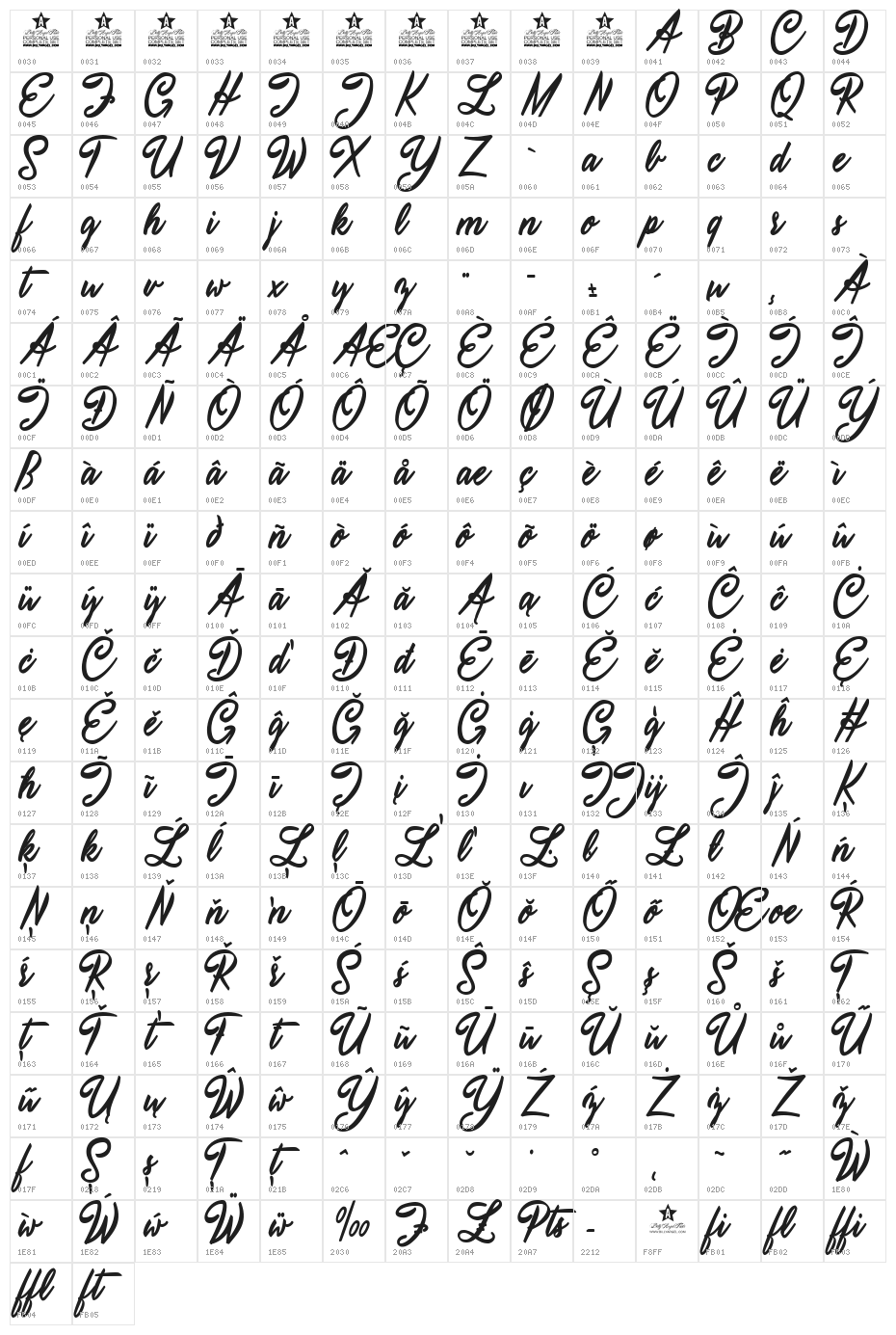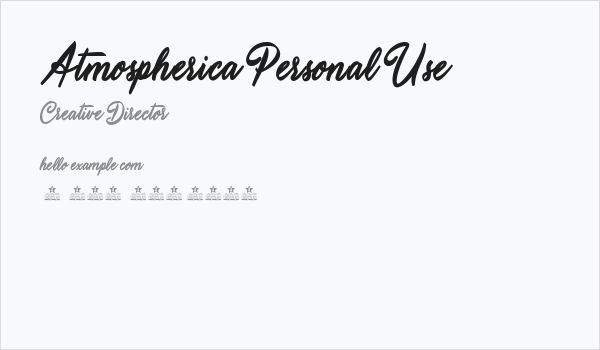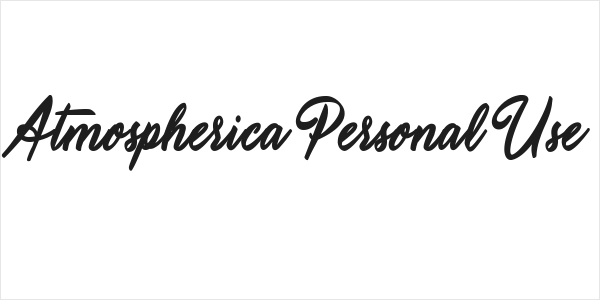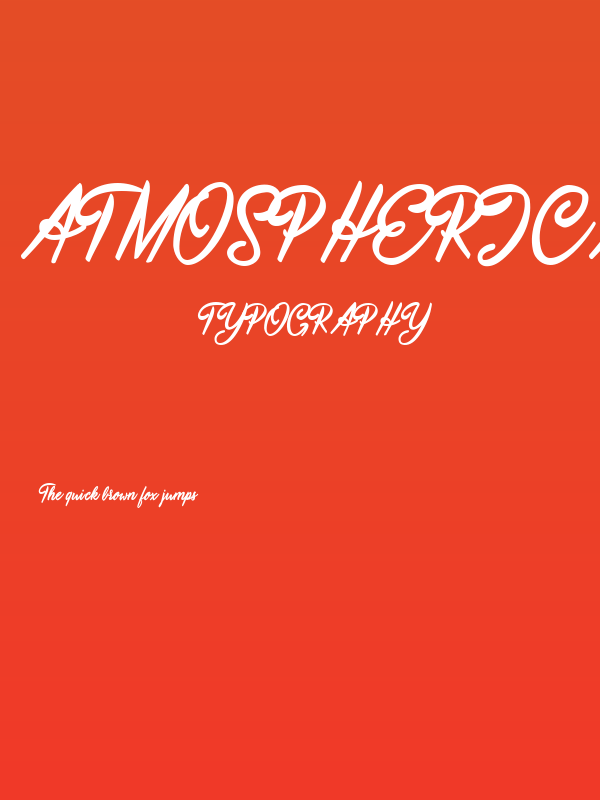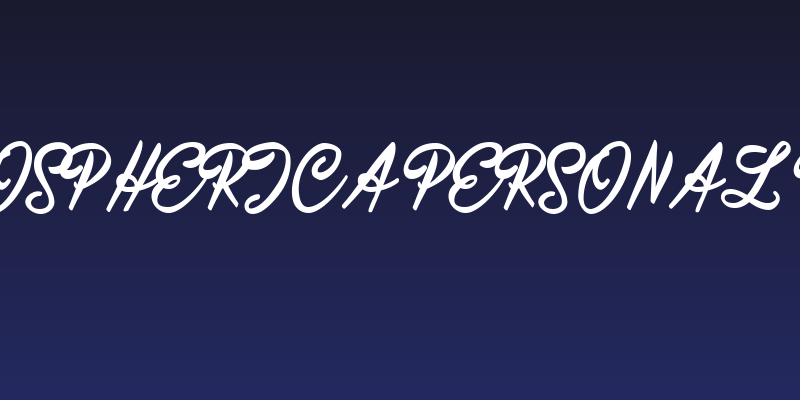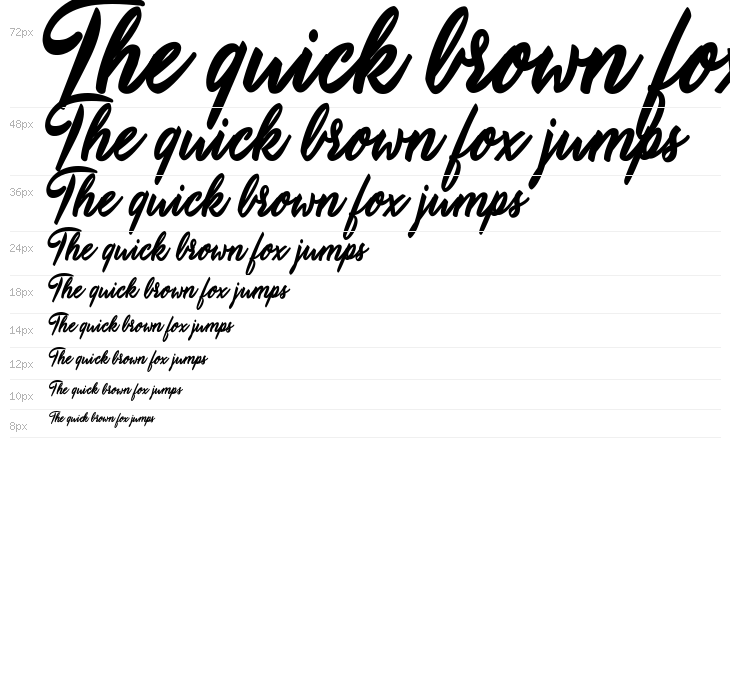
Atmospherica Personal Use Font
Atmospherica Personal Use Description
This font features a dynamic and flowing script style, characterized by its elegant and cursive letterforms. The uppercase letters are bold and slightly slanted, giving a sense of movement and fluidity. The lowercase letters maintain a consistent style with smooth curves and connected strokes, enhancing the handwritten feel. The numerals and special characters follow the same aesthetic, ensuring a cohesive look across all characters. This font's design is both expressive and sophisticated, making it suitable for projects that require a personal touch.
| Proposed Projects | Ideal for wedding invitations, greeting cards, branding projects, and any design that seeks a personal and elegant touch. |